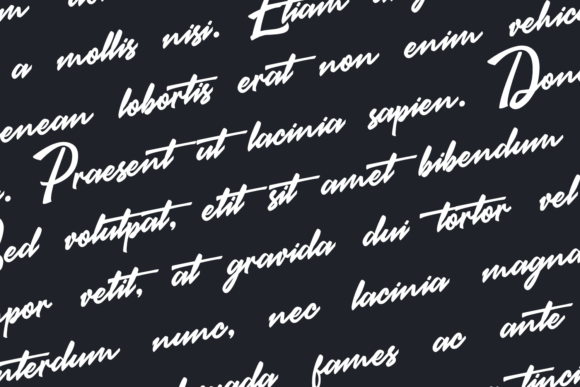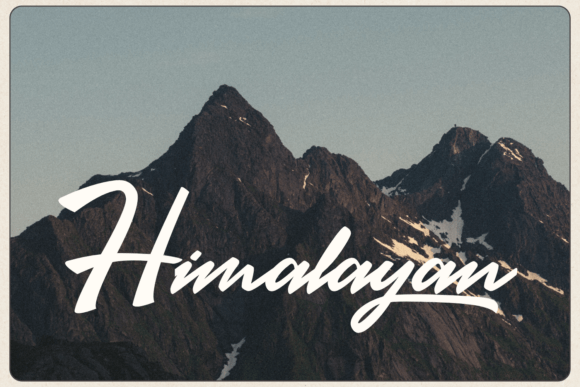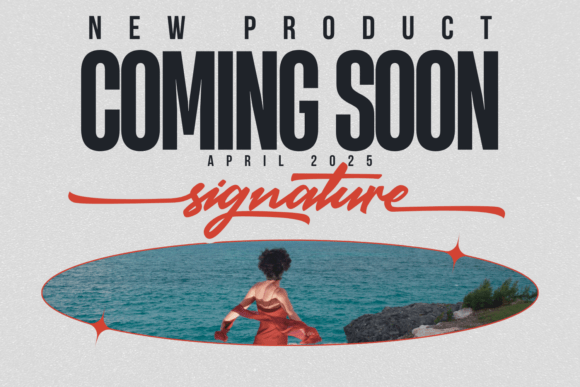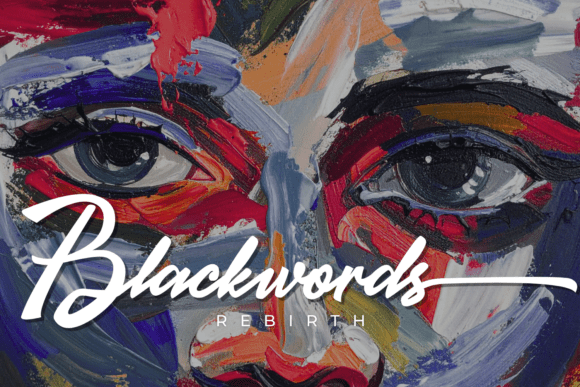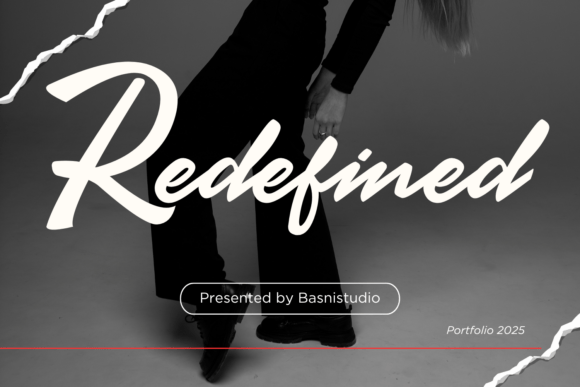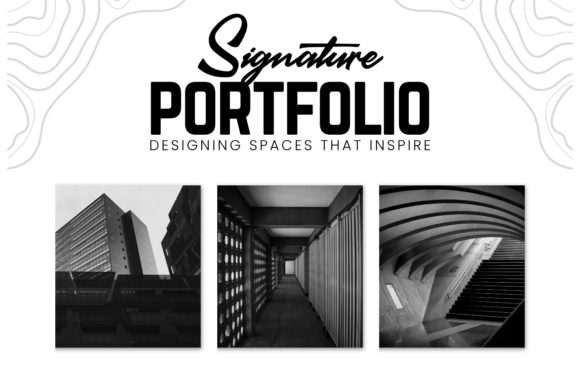
Introducing Brastigma Font: Elevate Your Design with Elegance and Versatility
In the world of design, typography plays a crucial role in conveying messages, expressing creativity, and building brand identities. A well-crafted font can make all the difference in transforming a design from ordinary to extraordinary. This is where Brastigma Font comes into play, a signature font that adds an elegant, versatile touch to everything from branding and social media to invitations and packaging.
What is Brastigma Font?
Brastigma Font is a carefully crafted typeface designed to bring a touch of sophistication and elegance to various design projects. Whether you’re building a powerful brand identity or crafting a standout logo, Brastigma is perfect for your project. Its versatility makes it an ideal choice for designers and crafters looking to add a professional and stylish flair to their work.
Key Features of Brastigma Font
- Elegant and Versatile: Brastigma Font boasts an elegant design that can be used across various platforms and design projects, from digital media to print materials.
- Signature Style: With its unique signature style, Brastigma helps you create a lasting impression, making your designs stand out from the crowd.
- Branding and Social Media: Perfect for creating a strong brand identity on social media platforms, ensuring consistency and professionalism across all your digital presence.
- Invitations and Packaging: Adds a touch of sophistication to invitations, product packaging, and any other printed materials, elevating the overall aesthetic.
Why Choose Brastigma Font?
Choosing the right font for your design project can be overwhelming, given the numerous options available. However, Brastigma Font stands out for several reasons:
- Universality: Its elegant and clean design makes it suitable for a wide range of projects, from corporate branding to personal invitations.
- Readability: Brastigma offers excellent readability, ensuring that your message is conveyed clearly and effectively, regardless of the medium.
- Customization: The font comes with a range of customization options, allowing you to adapt it to fit your project’s specific needs and style.
How to Use Brastigma Font in Your Designs
Incorporating Brastigma Font into your design workflow is straightforward. Here are some tips to get you started:
- Pair it with Other Fonts: Experiment with pairing Brastigma with complementary fonts to create visual interest and hierarchy in your designs.
- Adjust Font Weights: Utilize different font weights of Brastigma to add depth and emphasis to your text, making your designs more dynamic.
- Play with Colors: Don’t be afraid to experiment with various colors to match your brand’s palette or the mood of your design.
Brastigma Font in Digital and Print Media
The adaptability of Brastigma Font makes it an excellent choice for both digital and print media. Here’s how you can leverage it across different platforms:
- Web Design: Use Brastigma Font for website headers, titles, and key messaging to create a professional and inviting online presence.
- Social Media Graphics: Enhance your social media posts and stories with Brastigma, ensuring your content stands out and aligns with your brand identity.
- Print Materials: From business cards and brochures to product packaging and invitations, Brastigma adds a touch of elegance and sophistication to any printed material.
Brastigma Font is more than just a typeface; it’s a design solution that brings elegance, versatility, and professionalism to your projects. Whether you’re a designer looking to elevate your client’s brand or a crafter aiming to add a personal touch to your creations, Brastigma is the perfect choice. With its wide range of applications and ease of use, Brastigma Font is set to become an indispensable part of your design toolkit.